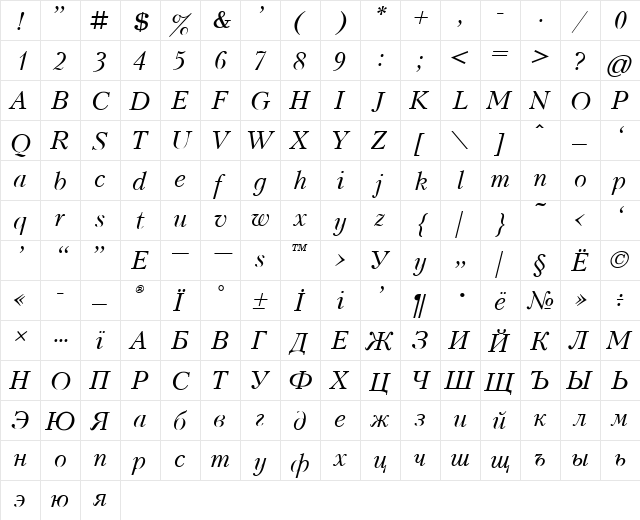
Kudrashov Italic Font Preview
Kudrashov Italic
Kudrashov Italic Font Details
Design Context for Kudrashov Typeface
Kudrashov offers clean, dependable letterforms without strong stylistic allegiance, making it a practical choice for designers who need flexibility. Its italic angle brings a sense of urgency and motion to the letterforms.